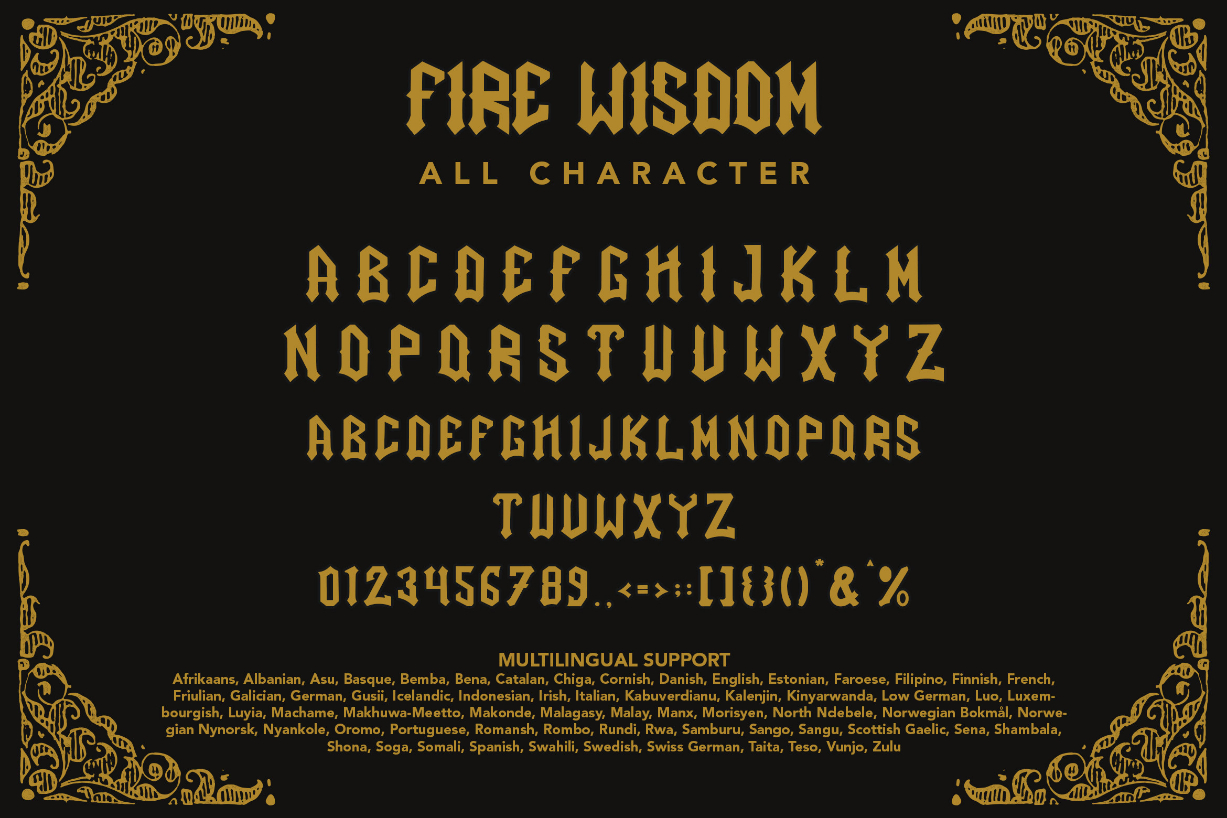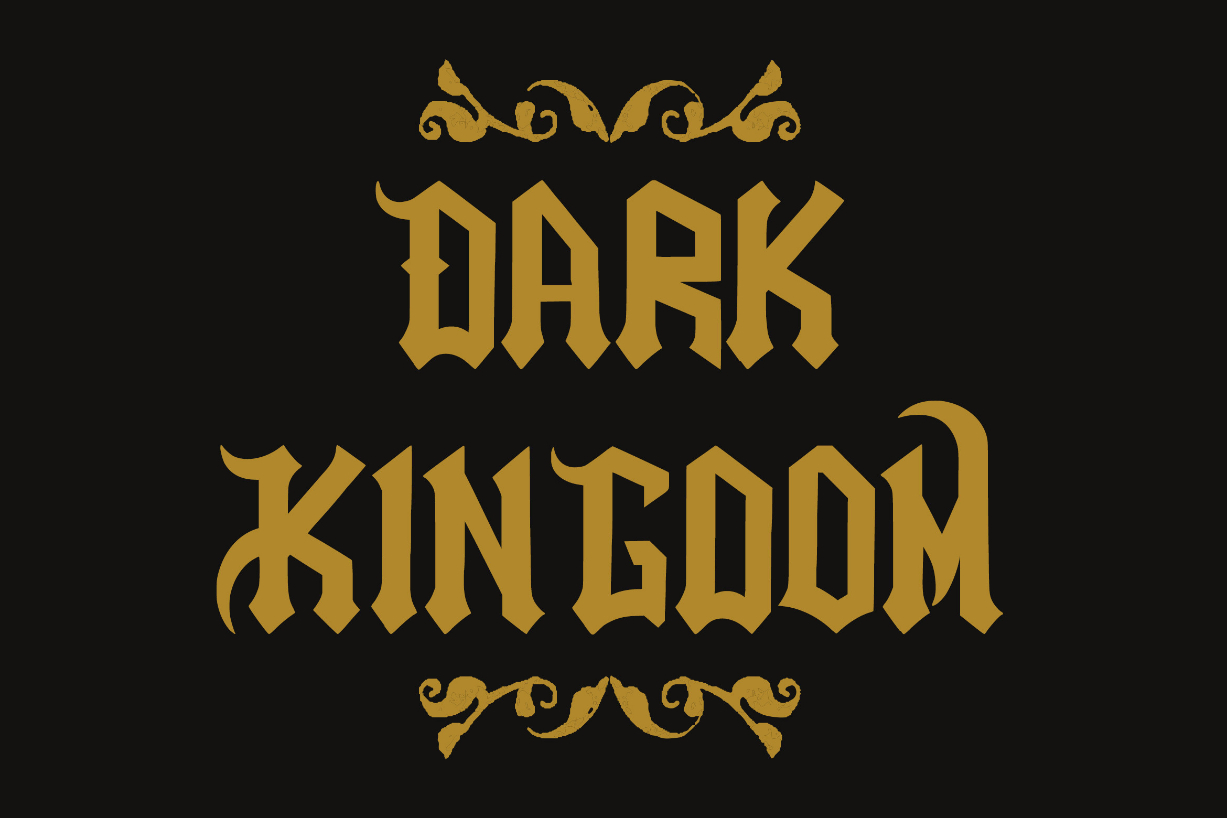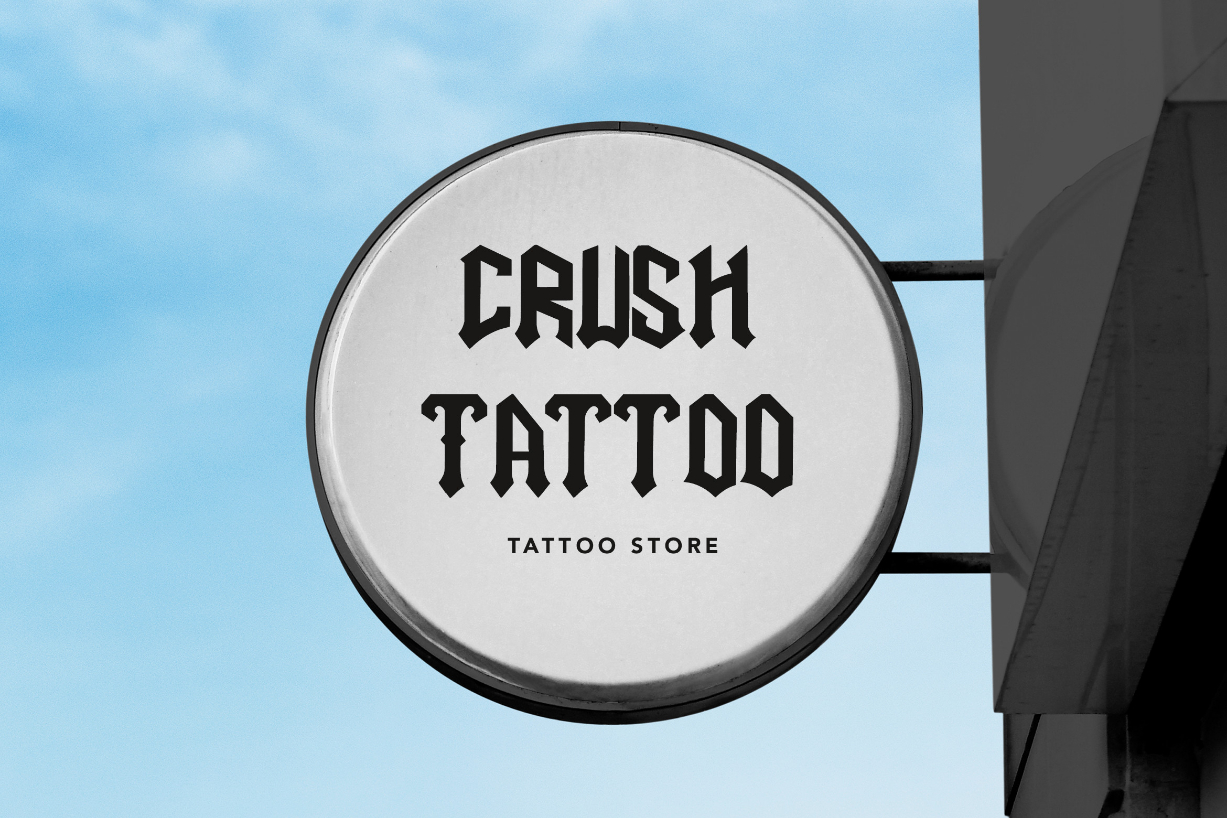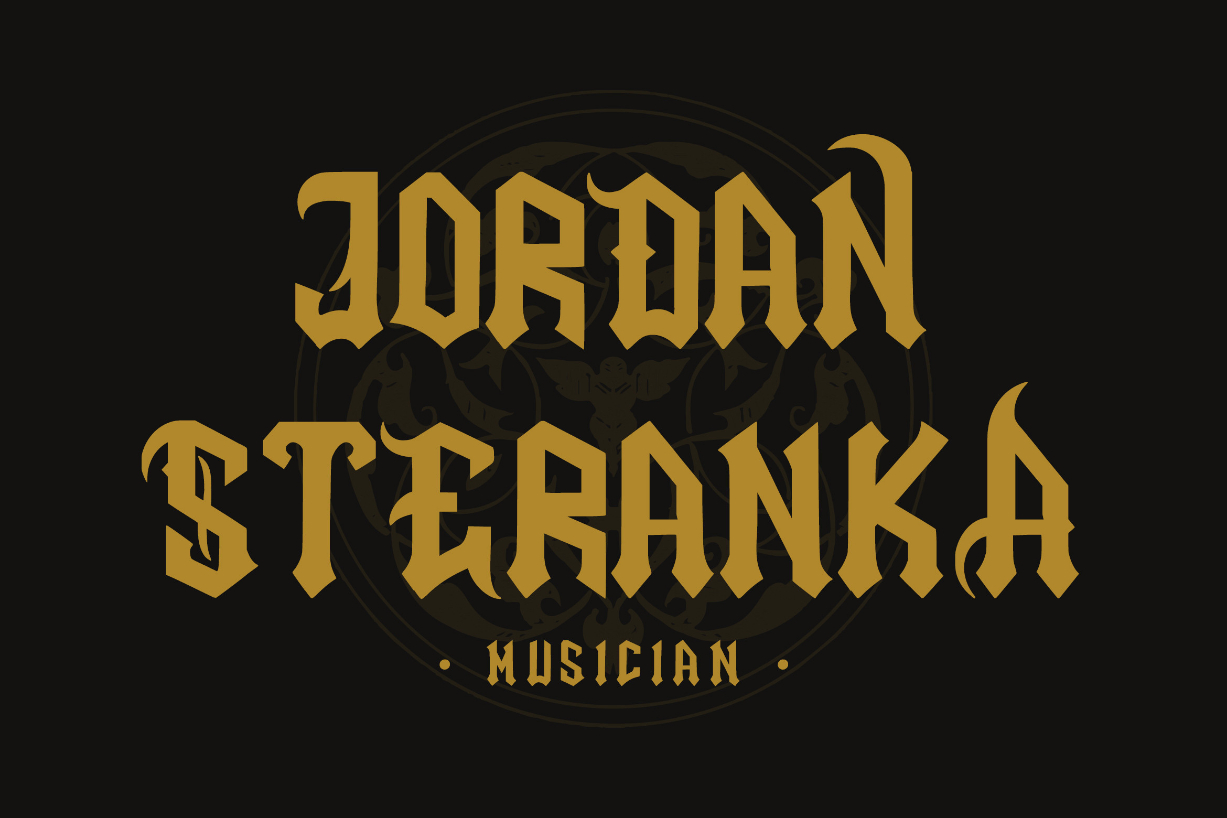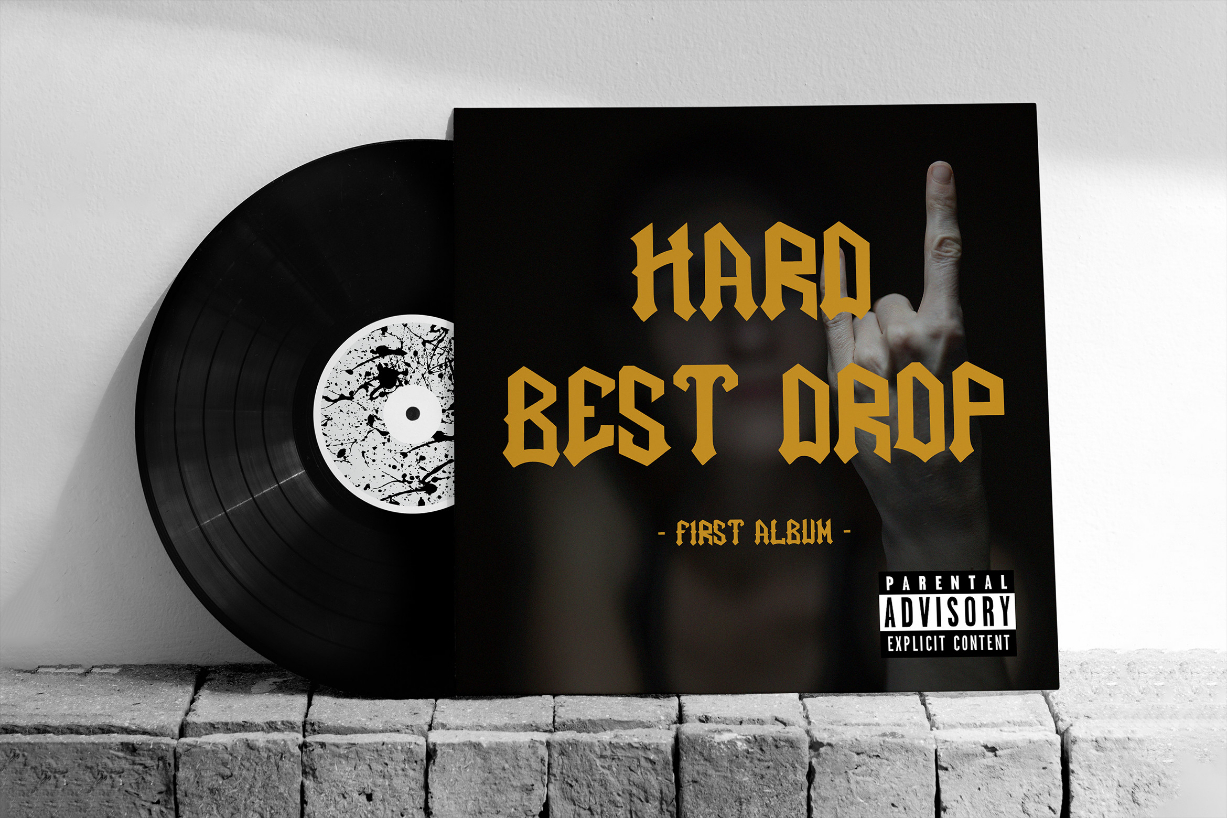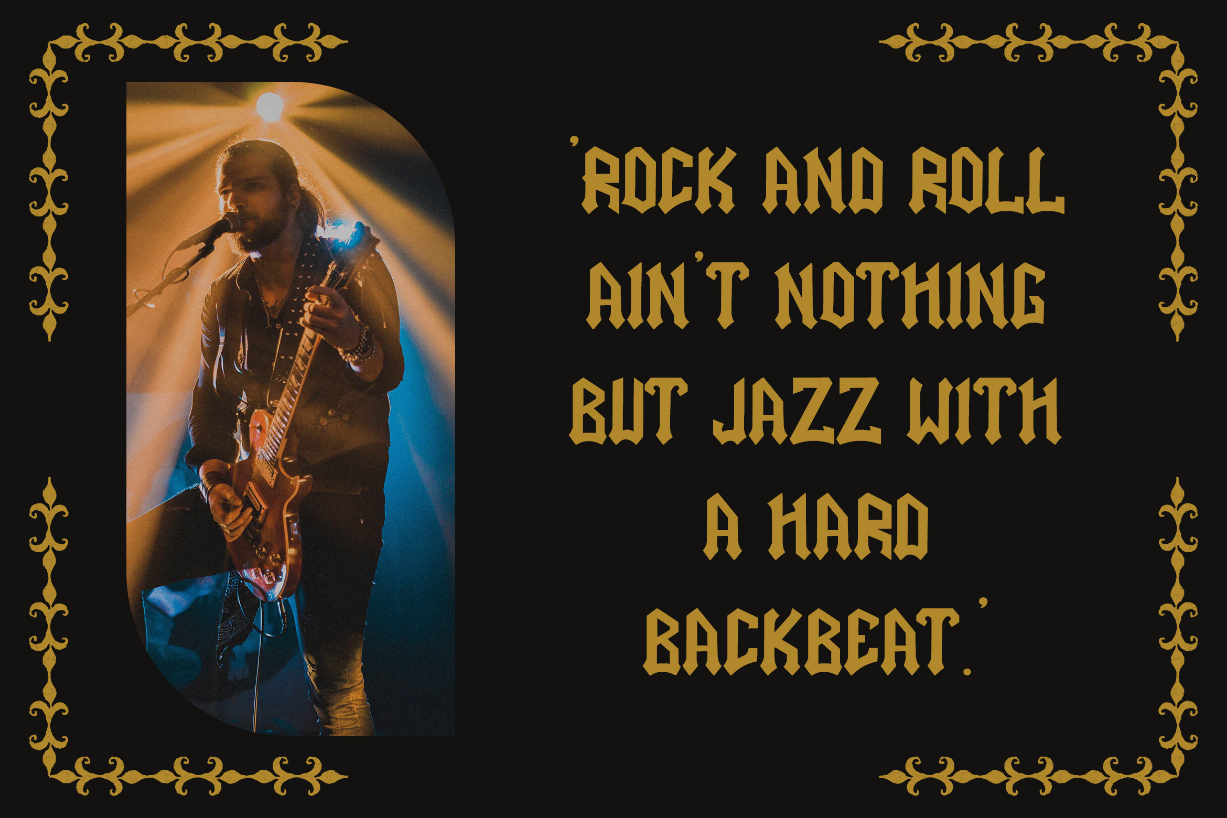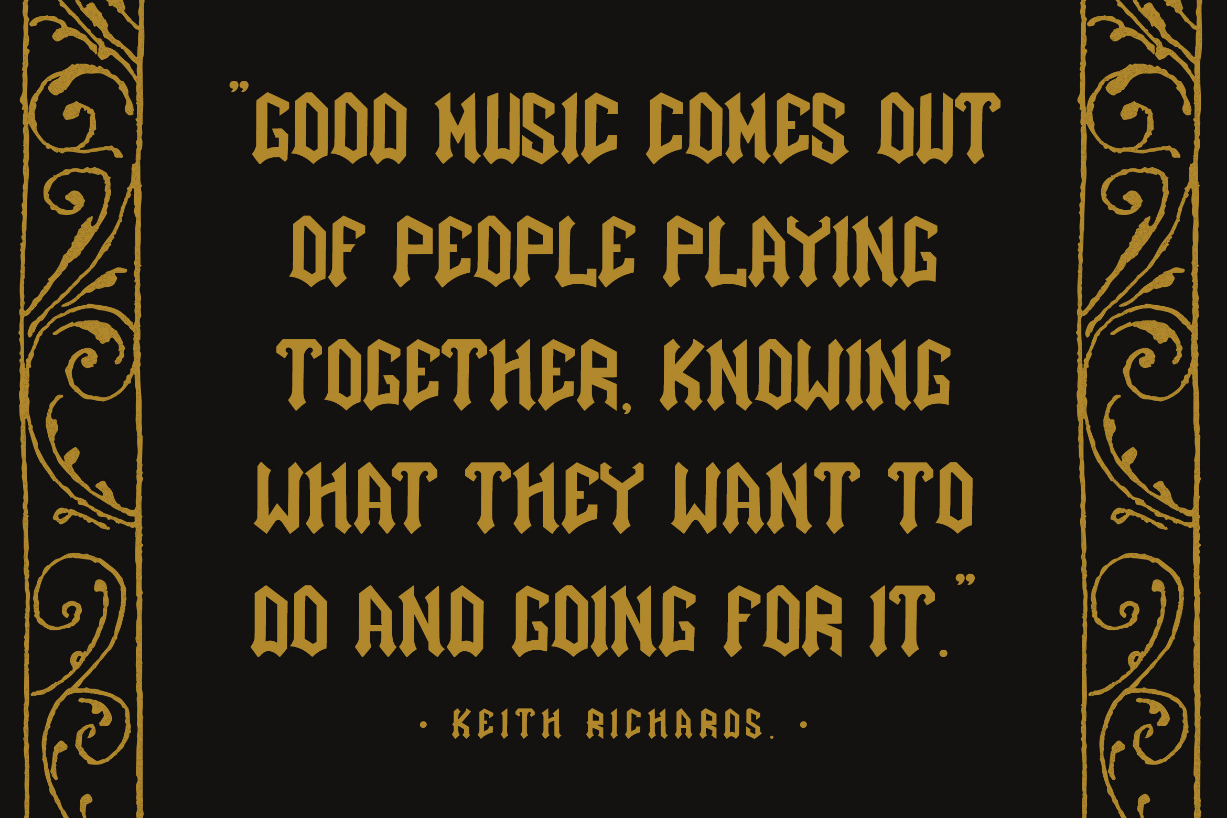
Fire Wisdom Font
About Fire Wisdom Font
Fire Wisdom – Blackletter Display Font is a display font that is inspired by gothic and horror styles because its shape is very unique and is perfect for any project that you will use with this theme.